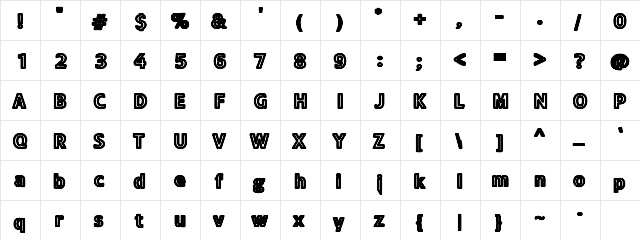
JustDoodlingFifteen Regular Font Preview
JustDoodlingFifteen Regular
Design Context for JustDoodlingFifteen Typeface
JustDoodlingFifteen is a composed and adaptable typeface that performs quietly and consistently across a wide range of design contexts.